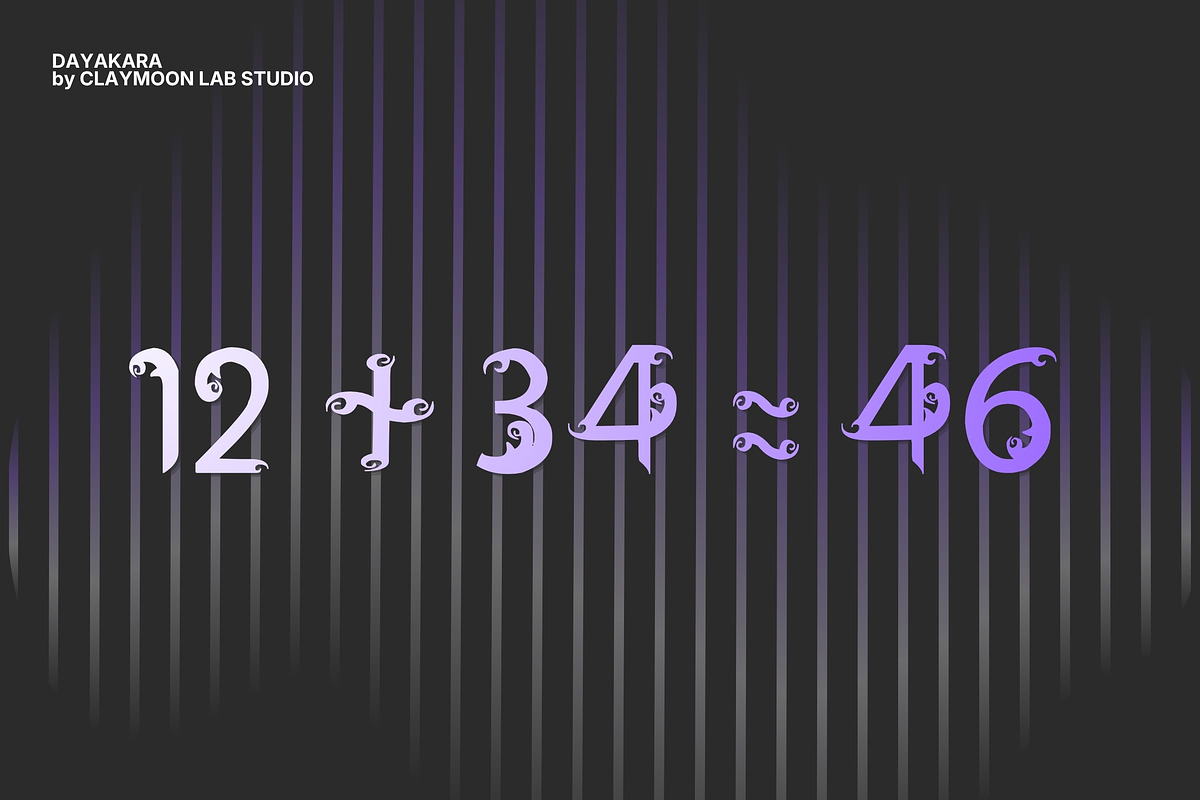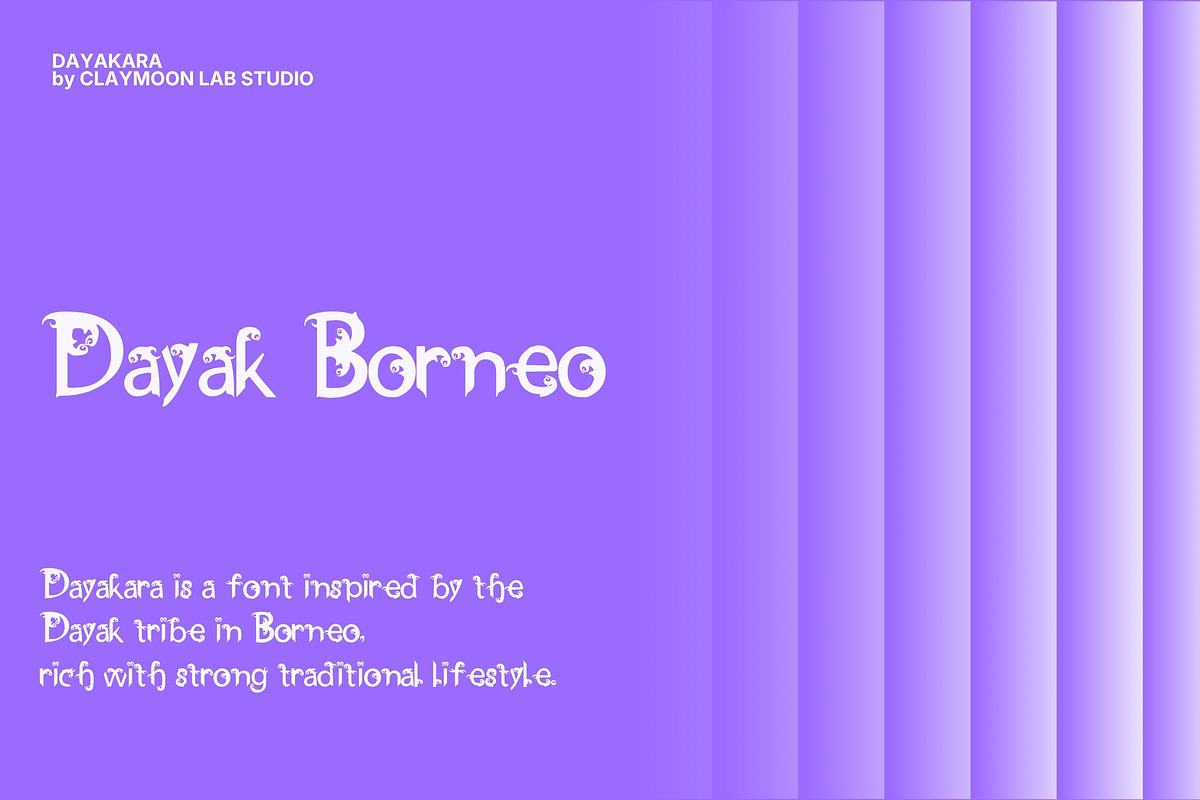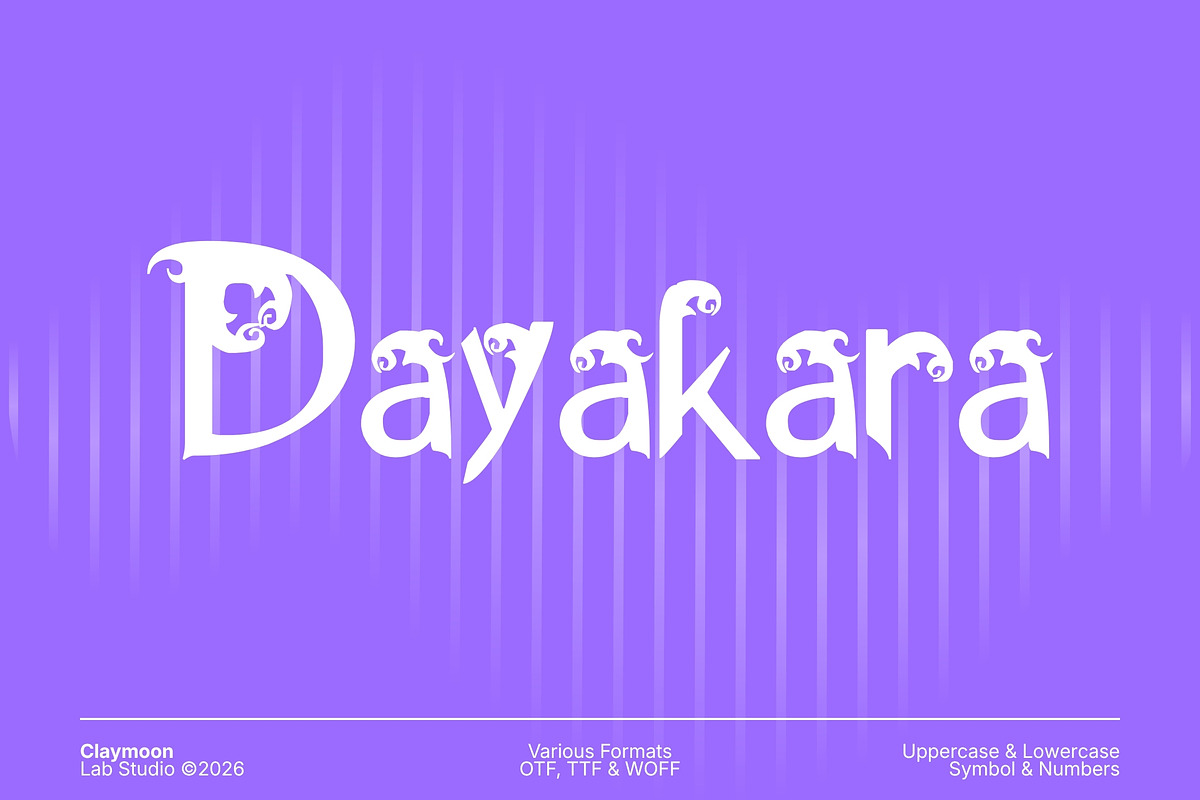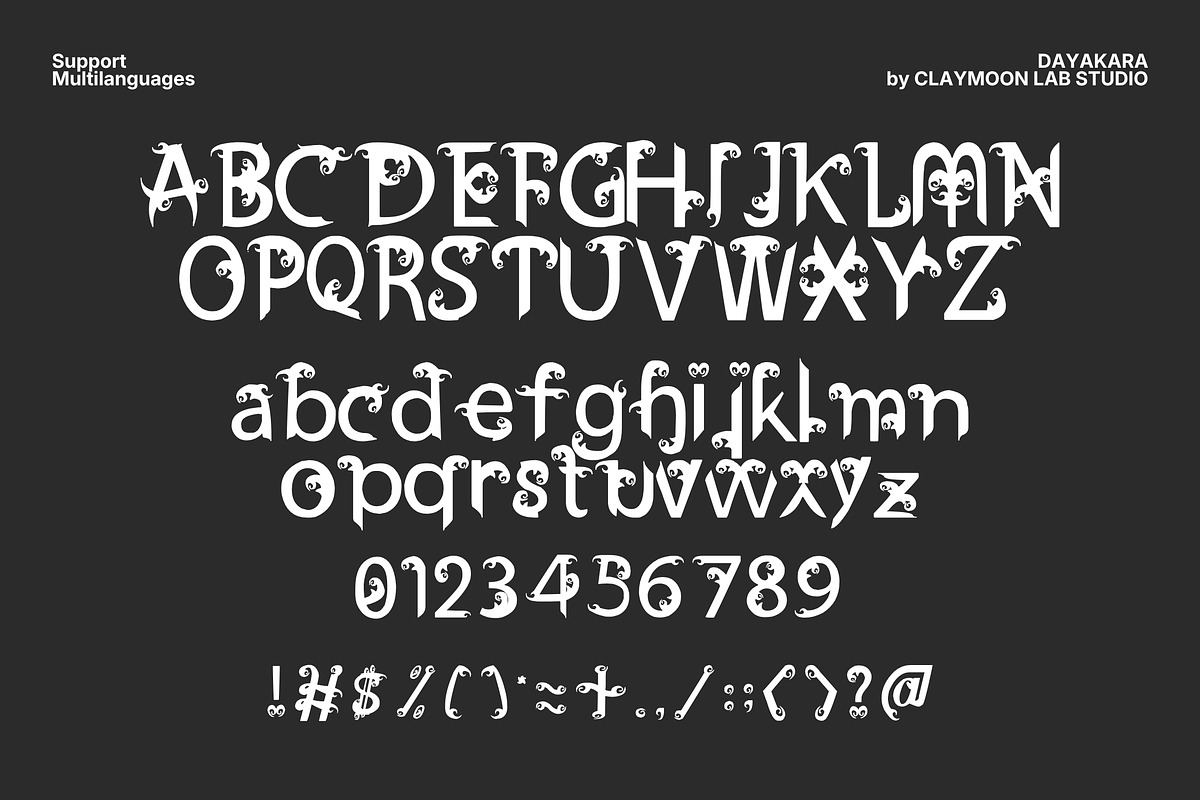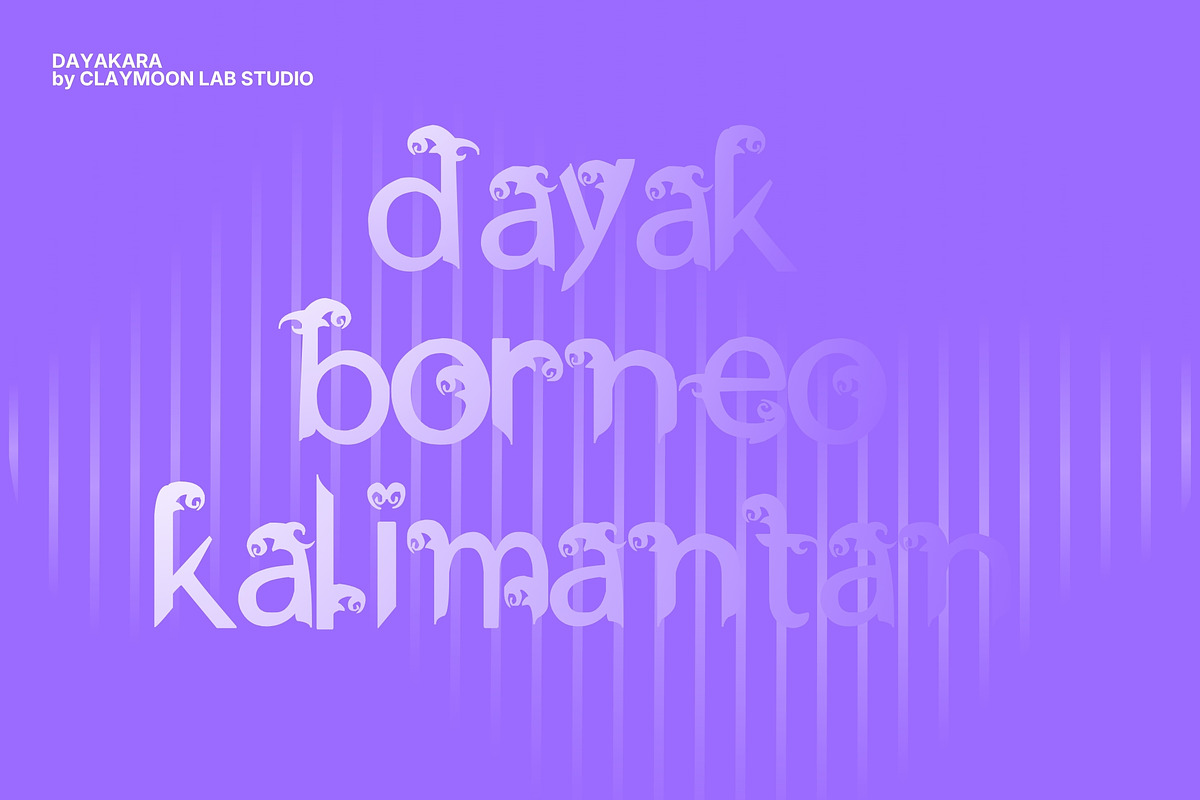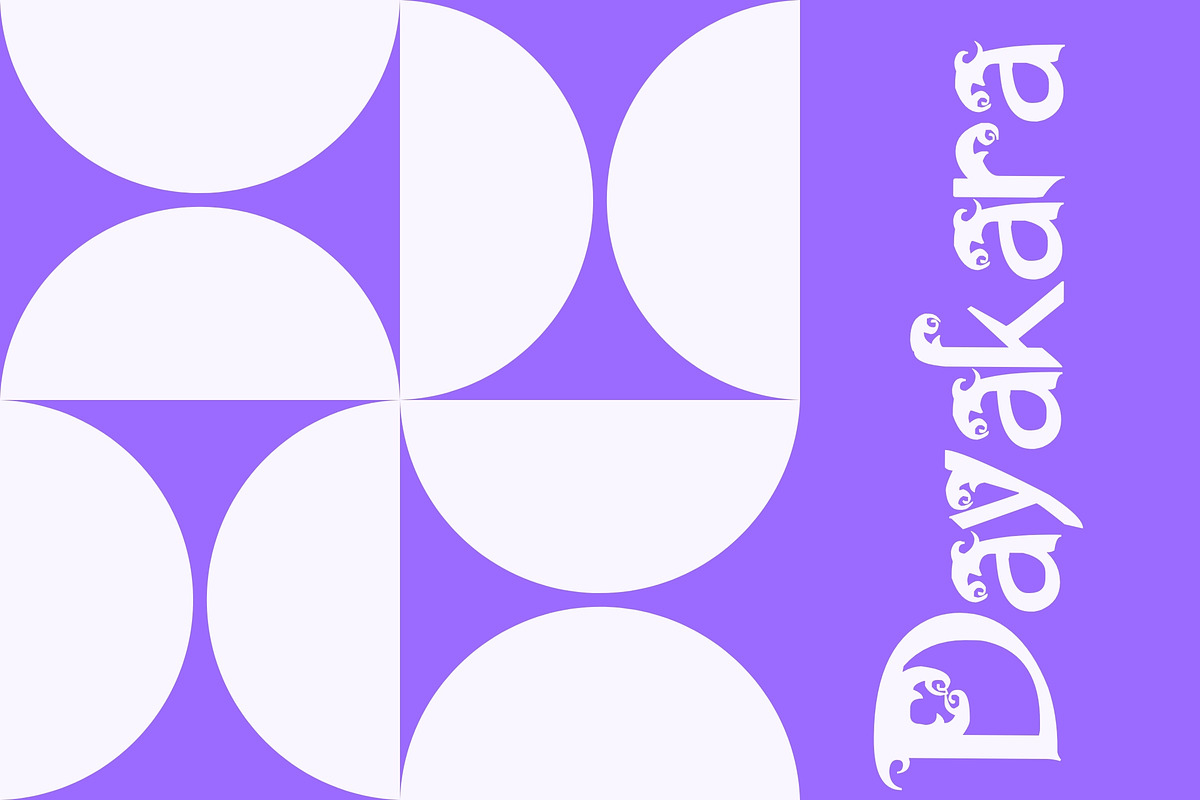
Dayakara - Ethnic Decorative Serif
Dayakara - Ethnic Decorative Serif Font
Dayakara is a mesmerizing decorative serif font that draws deep inspiration from the intricate patterns and mystical allure of traditional ethnic carvings. Every character is meticulously crafted with swirling ornaments and sharp, elegant terminals, echoing the spiritual heritage and craftsmanship of ancient tribal arts. This font isn't just a set of letters; it’s a storytelling tool designed to bring a sense of cultural identity and timeless mystery to your creative projects.
With its unique blend of traditional aesthetics and modern precision, Dayakara is the perfect choice for high-end branding, cinematic posters, cultural event identity, and book cover designs. Whether you are working on a luxury spa logo or a historical exhibition banner, Dayakara provides a distinctive visual voice that commands attention and evokes a feeling of exotic elegance.
Full Character Set: Includes Uppercase, Lowercase, Numbers, and a wide range of Symbols & Punctuation.
Multilingual Support: Designed to accommodate various languages for global versatility.
Versatile Styling: Perfect for both display headers and short, impactful body text.
Perfect For These Projects:
Ethnic Branding: Crafting unique logos for artisanal products, boutique hotels, or cultural brands.
Poster & Media Design: Creating high-impact visuals for films, music festivals, and theater productions.
Packaging Design: Elevating organic products, traditional medicines, or exotic food packaging with a premium touch.
Social Media Content: Standing out with mystical and artistic typography for Instagram and TikTok.
Tagline Dayakara: An exquisite ethnic decorative serif font for mystical branding and cultural storytelling.